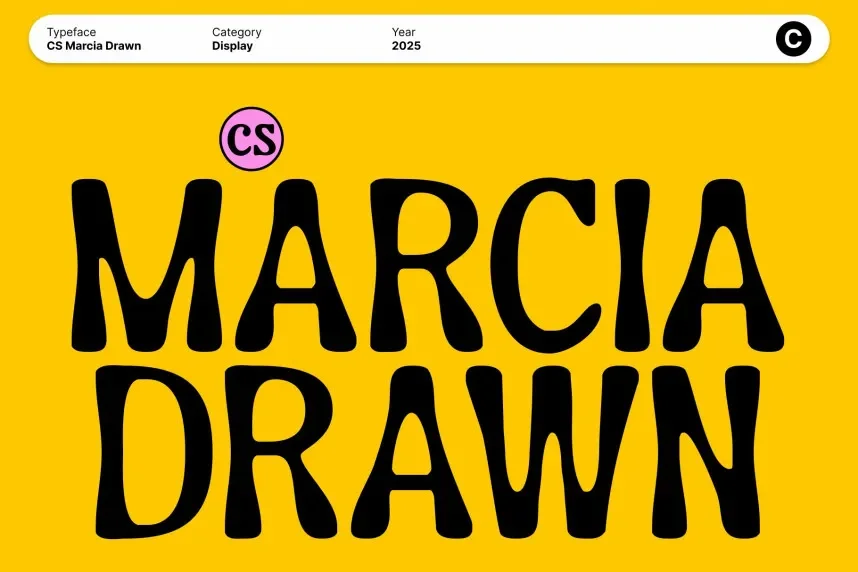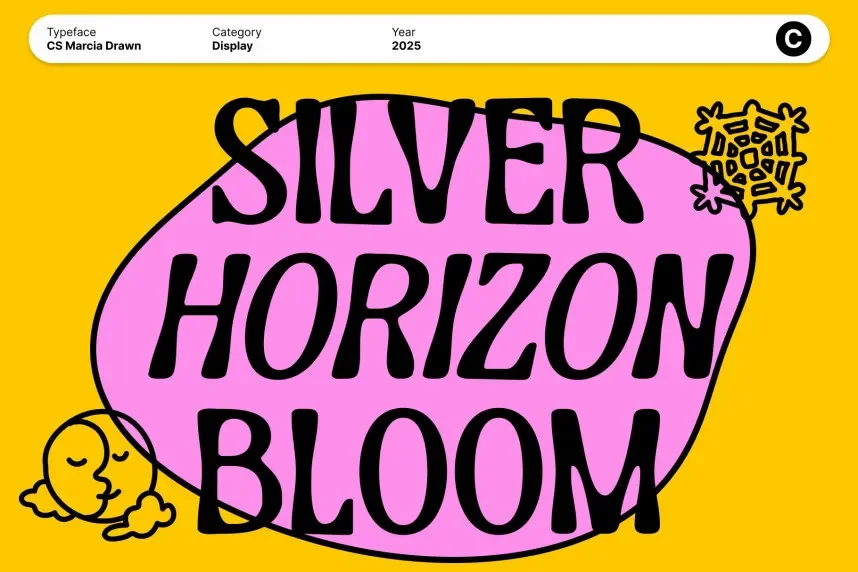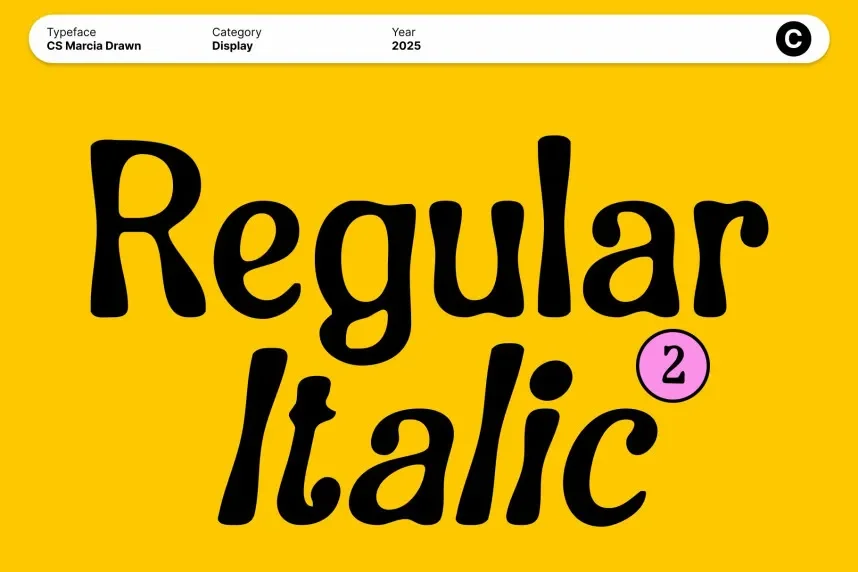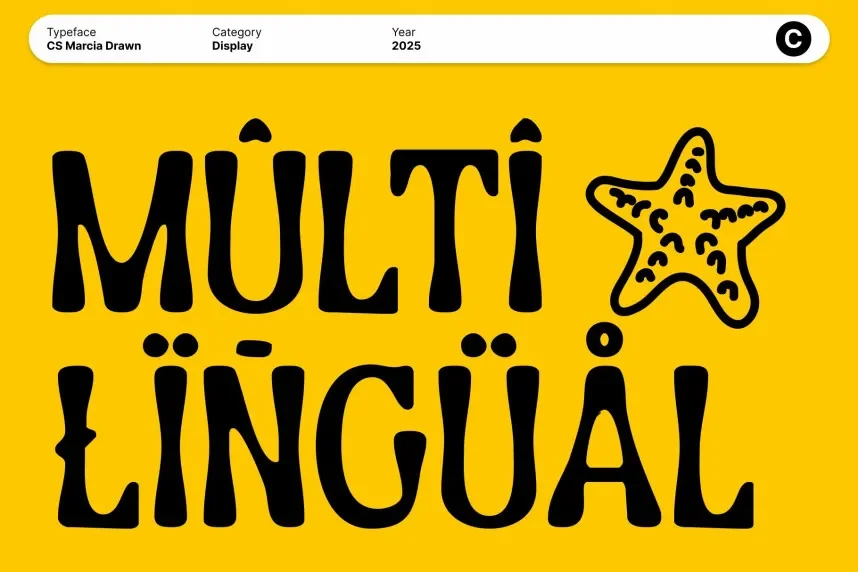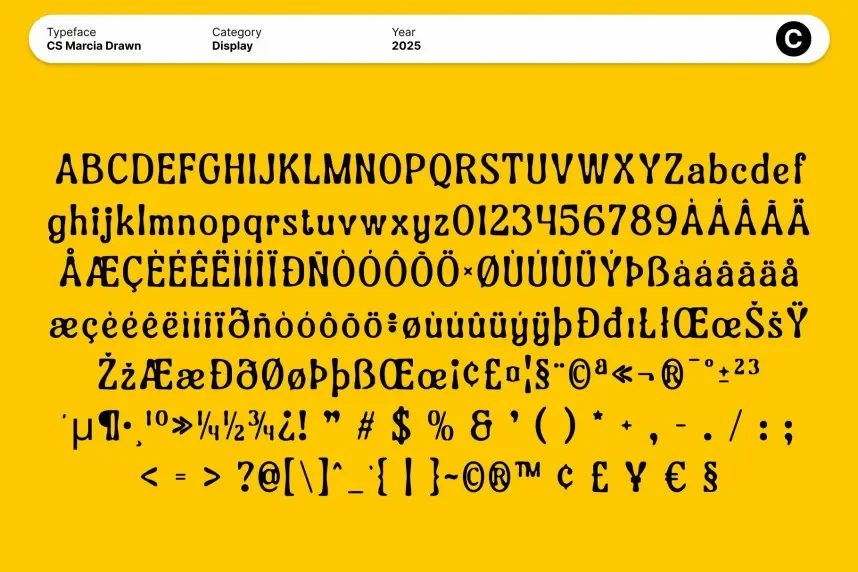
CS Marcia Drawn Font addresses the challenge of adding a creative, hand-drawn style to designs while maintaining readability. It’s ideal for projects requiring a playful, artistic touch without compromising legibility.
CS Marcia is a display font with bold, uneven strokes and irregular letterforms that give it a handcrafted, sketch-like feel. Its dynamic design makes it suitable for short text and attention-grabbing designs.